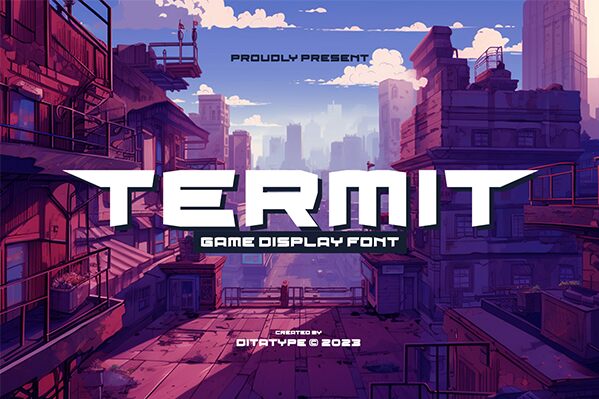
Termit font by Ditatype is a bold, expanded display typeface of dense appearance and futuristic vibe. Its geometric structure, prominent angular elements, and techno aesthetic make it look uniform with no variations between the characters. Visual consistency and balance also characterizes this short-font that only features uppercase letters.
The font is perfectly effective when used in headings applications to deliver strong messages that focus on website headers, digital posters or postcards, product packaging or labels, magazine and newspaper titles or covers, music album covers, as well as in logo and other branding projects. It’s friendly for print and digital use.